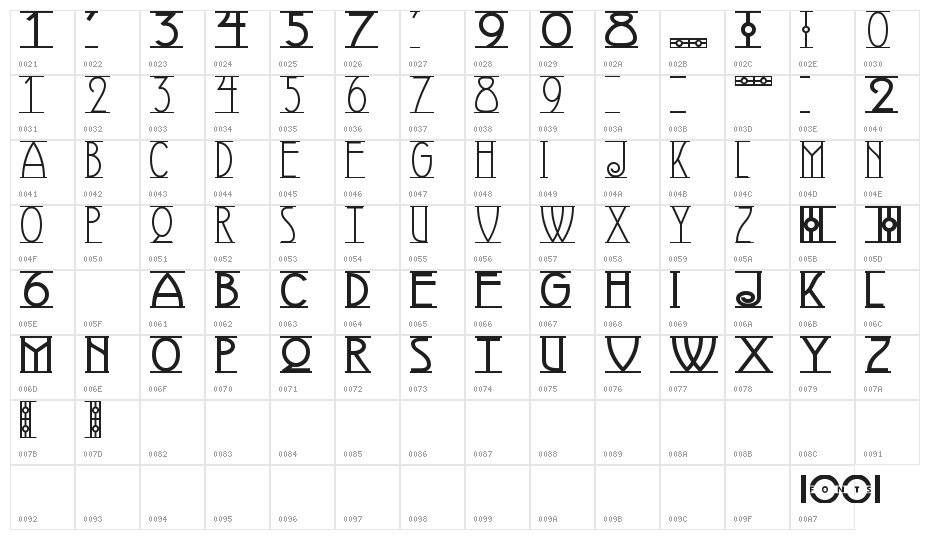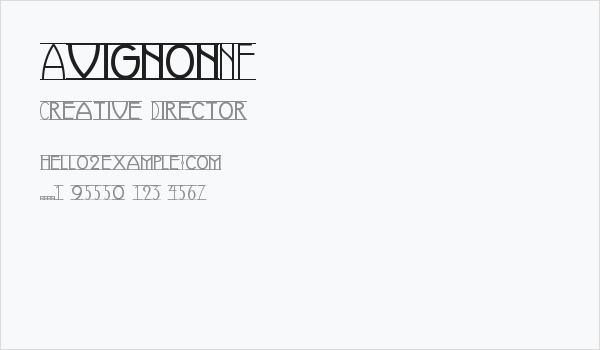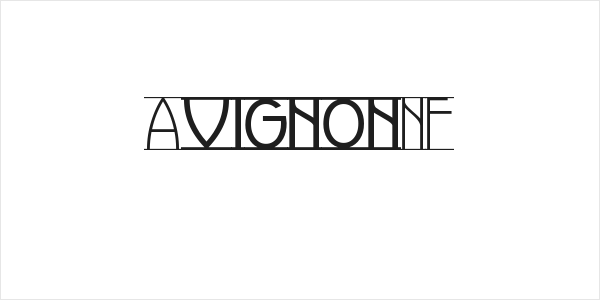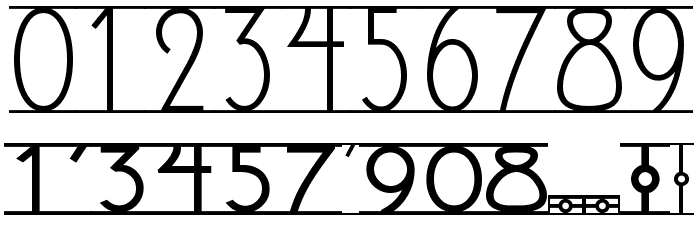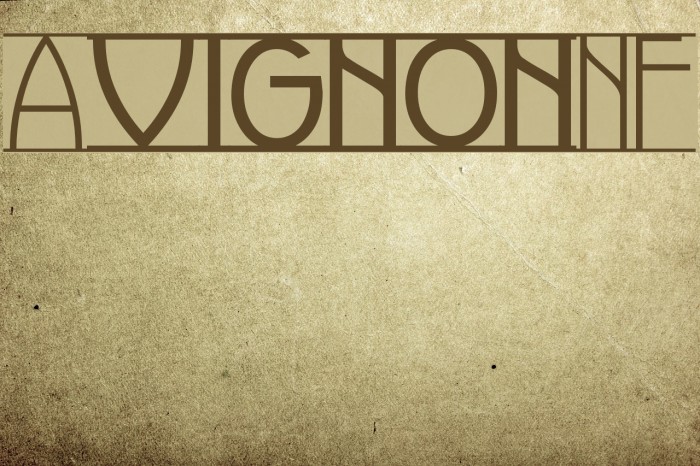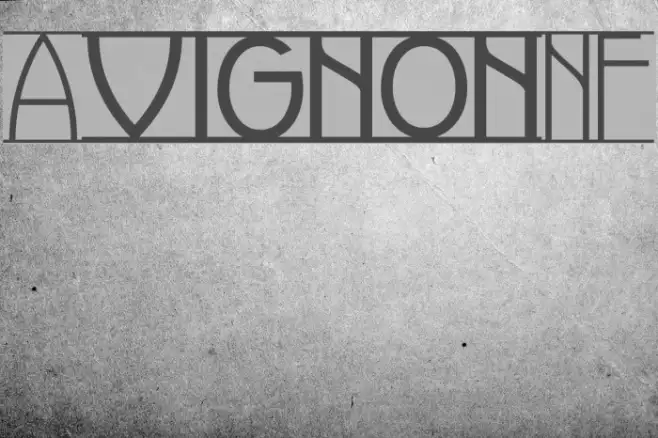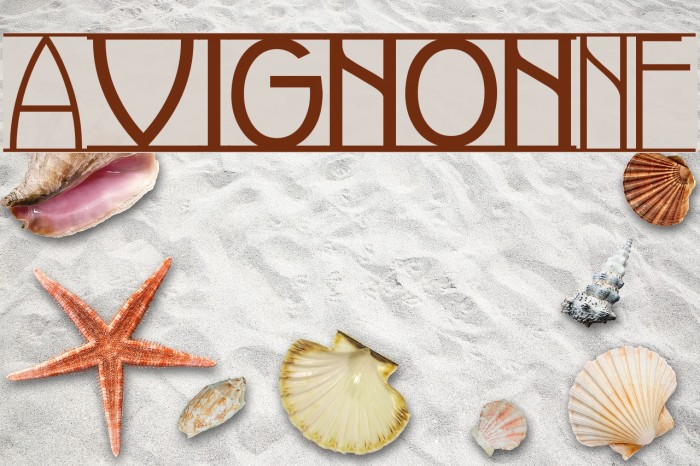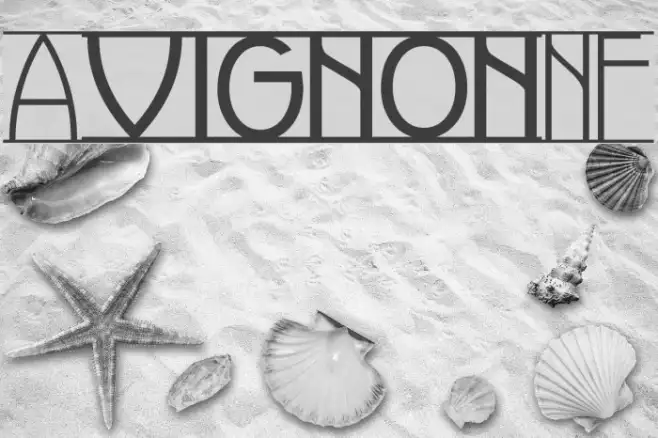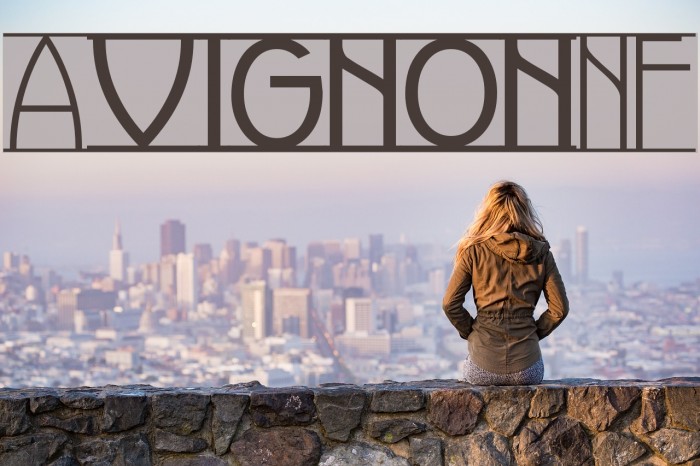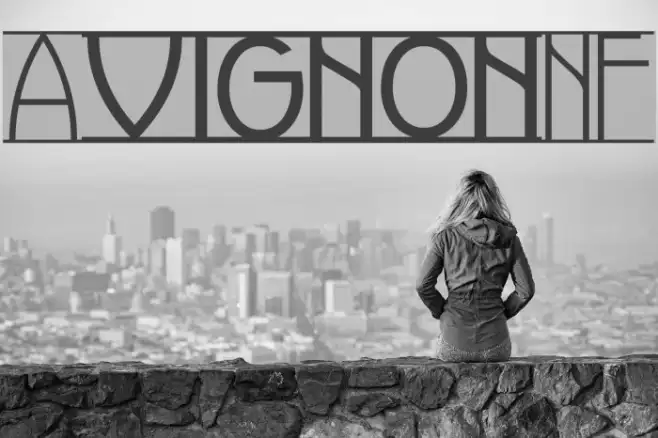
AvignonNF Font
AvignonNF Description
This font features a unique and artistic design with elongated, narrow characters that exhibit a blend of geometric and decorative elements. The uppercase letters are particularly striking, with some characters incorporating spiral and curved motifs that add a whimsical touch. The overall appearance is both elegant and playful, making it suitable for creative and artistic projects. The numbers and special characters maintain the same stylistic approach, ensuring consistency throughout the typeface. This font's distinct style makes it stand out, offering a fresh take on traditional letterforms.